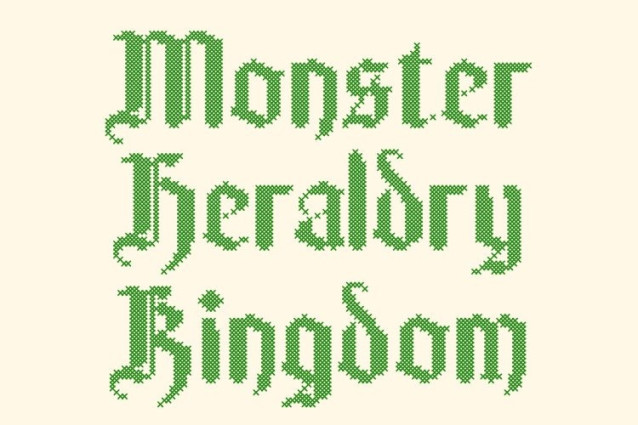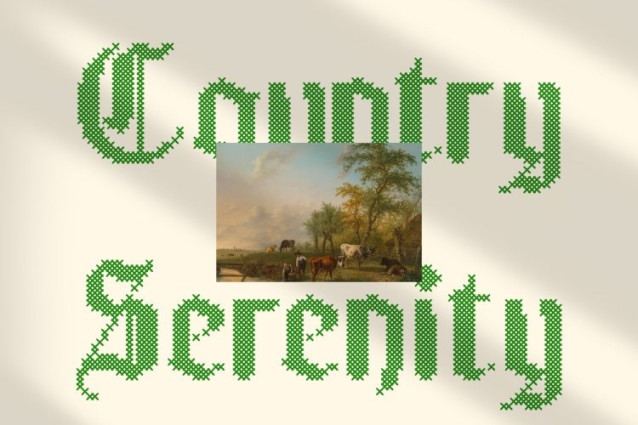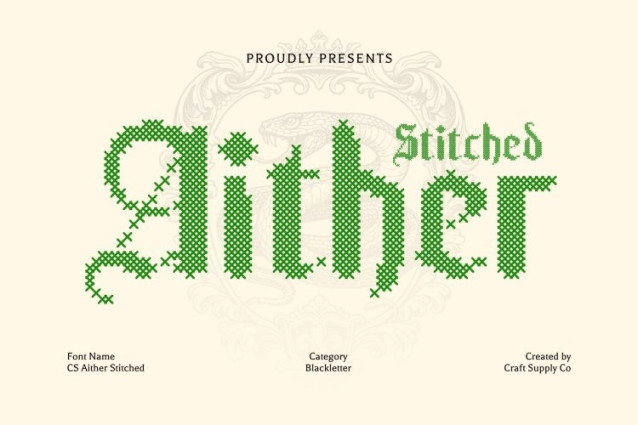
CS Aither Display Font
CS Aither Display Font – This is a distinguished display font crafted in the iconic Blackletter style often known as Gothic or Old English. Defined by bold letterforms, sharp angles, and intricate ornamental details, it creates a dramatic impression rooted in history and tradition. Enhanced with a stitched style inspired by thread sewn or embroidered on fabric, this version introduces a handcrafted warmth that enriches its powerful structure.
Ornate Forms with Embossed Stitch Texture
The elaborate serifs and sweeping strokes of are complemented by a cross-shaped stitch pattern that creates a distinctive embossed and structured texture. This stitched detailing adds depth and tactility, evoking a classic, nostalgic, and relaxed impression while maintaining the font’s commanding and authoritative presence.
Powerful Presence with Warm Character
While the bold Blackletter foundation conveys strength, sophistication, and heritage, the stitched effect softens the intensity with a personal and approachable feel. This unique combination allows the font to balance grandeur with warmth, making it both visually striking and emotionally engaging.
Versatile for Heritage, Formal, and Craft-Inspired Designs
This is ideal for formal invitations, themed event posters, artistic projects, branding, clothing logos, and decorative layouts that require a sense of elegance and history. It also works beautifully for craft-themed designs and creative projects seeking a distinctive, textured aesthetic. With its blend of timeless Blackletter drama and handcrafted stitched detail, delivers a memorable and expressive typographic statement.